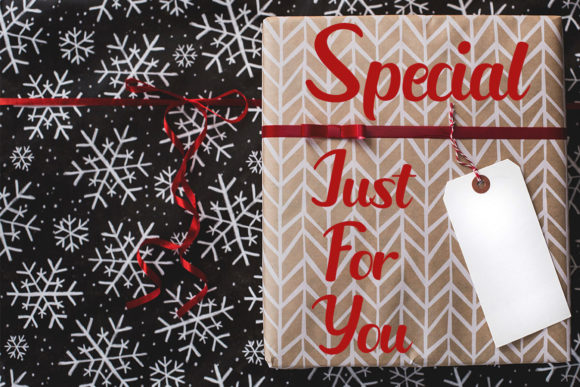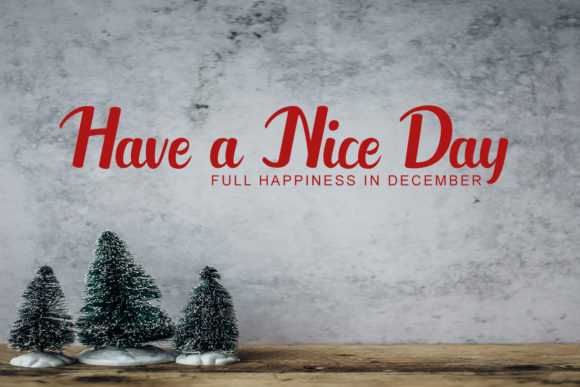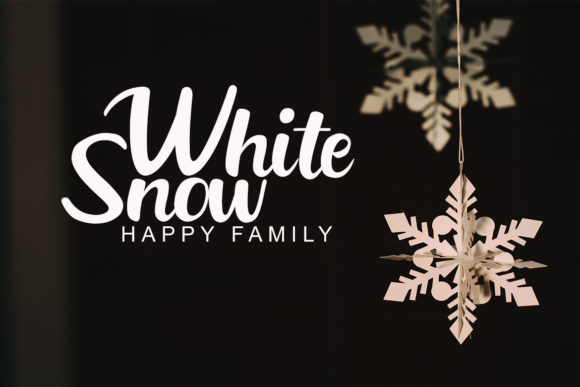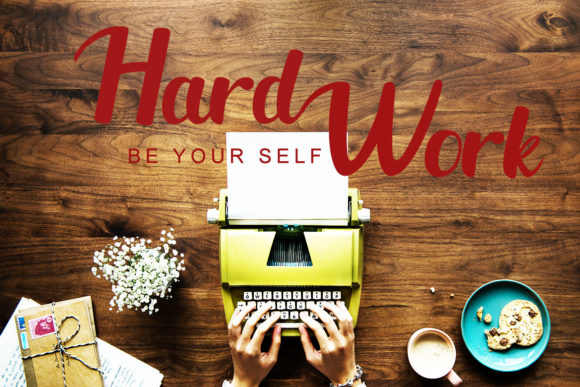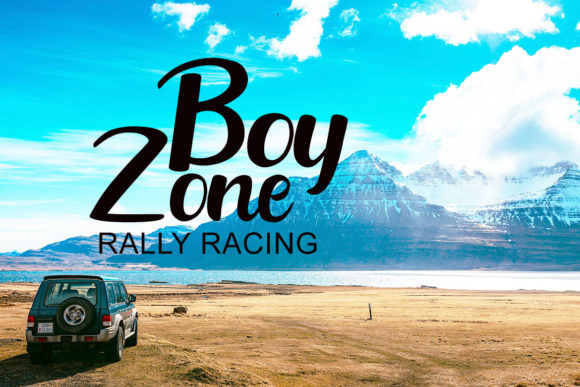
Austhin Font: Elevate Your Designs with a Modern Handmade Touch
The Austhin font is a game-changer for designers and crafters looking to add a personal touch to their work. This modern handmade font boasts bold letters and a dynamic look that makes it perfect for making any design stand out. In this article, we’ll dive into the world of Austhin font, exploring its features, benefits, and uses, as well as provide tips on how to make the most of this versatile font.
What is Austhin Font?
Austhin font is a modern handmade font designed to bring a touch of personality to your designs. Its bold and dynamic look makes it ideal for a wide range of applications, from branding and advertising to crafting and DIY projects. The font’s unique, hand-crafted aesthetic gives it a distinctive feel that’s sure to capture attention.
Key Features of Austhin Font
- Bold and Dynamic Look: Austhin font features bold letters with a dynamic look that adds a touch of energy to your designs.
- Handmade Aesthetic: The font’s handmade aesthetic gives it a unique, personal feel that’s perfect for crafters and designers looking to add a touch of personality to their work.
- Versatile: Austhin font is versatile and can be used for a wide range of applications, from digital designs to print projects.
Benefits of Using Austhin Font
So, why choose Austhin font for your next project? Here are just a few benefits of using this amazing font:
- Adds Personality to Your Designs: Austhin font’s unique, handmade aesthetic adds a touch of personality to your designs, setting them apart from the crowd.
- Perfect for Crafters and Designers: The font’s bold and dynamic look makes it perfect for crafters and designers looking to add a touch of energy to their work.
- Easily Readable: Despite its bold look, Austhin font is easily readable, making it perfect for use in a wide range of applications.
Uses of Austhin Font
Austhin font is incredibly versatile and can be used for a wide range of applications, including:
- Branding and Advertising: Use Austhin font to create bold, eye-catching logos and advertisements that grab attention.
- Crafting and DIY Projects: Add a personal touch to your crafting and DIY projects with Austhin font’s unique, handmade aesthetic.
- Digital Designs: Use Austhin font to add a touch of personality to your digital designs, from social media graphics to website headers.
Tips for Using Austhin Font
Here are a few tips for making the most of Austhin font:
- Experiment with Different Sizes: Austhin font looks great in a variety of sizes, so don’t be afraid to experiment to find the perfect fit for your design.
- Pair with Other Fonts: Try pairing Austhin font with other fonts to create a unique, eye-catching look.
- Use for Headings and Titles: Austhin font’s bold look makes it perfect for use in headings and titles, adding a touch of energy to your designs.
In conclusion, Austhin font is a modern handmade font that’s perfect for designers and crafters looking to add a personal touch to their work. Its bold and dynamic look makes it ideal for a wide range of applications, from branding and advertising to crafting and DIY projects. With its versatile and easily readable design, Austhin font is sure to become a go-to font for anyone looking to elevate their designs.